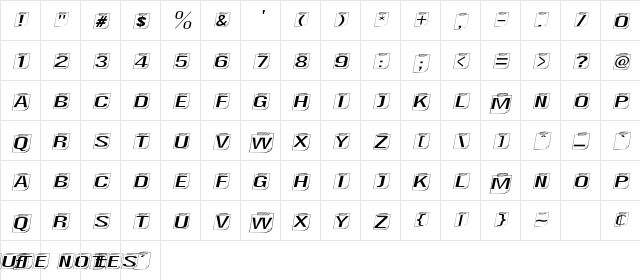
Cute Notes Italic
Designer: Joseph Dawson
Design Context for Cute Notes
Cute Notes is a composed and adaptable typeface that performs quietly and consistently across a wide range of design contexts. The slanted form adds forward momentum and visual energy.
Pro Tip: Use Cute Notes for emphasis, pull quotes, and subheadings where its slanted energy can add rhythm to the layout.